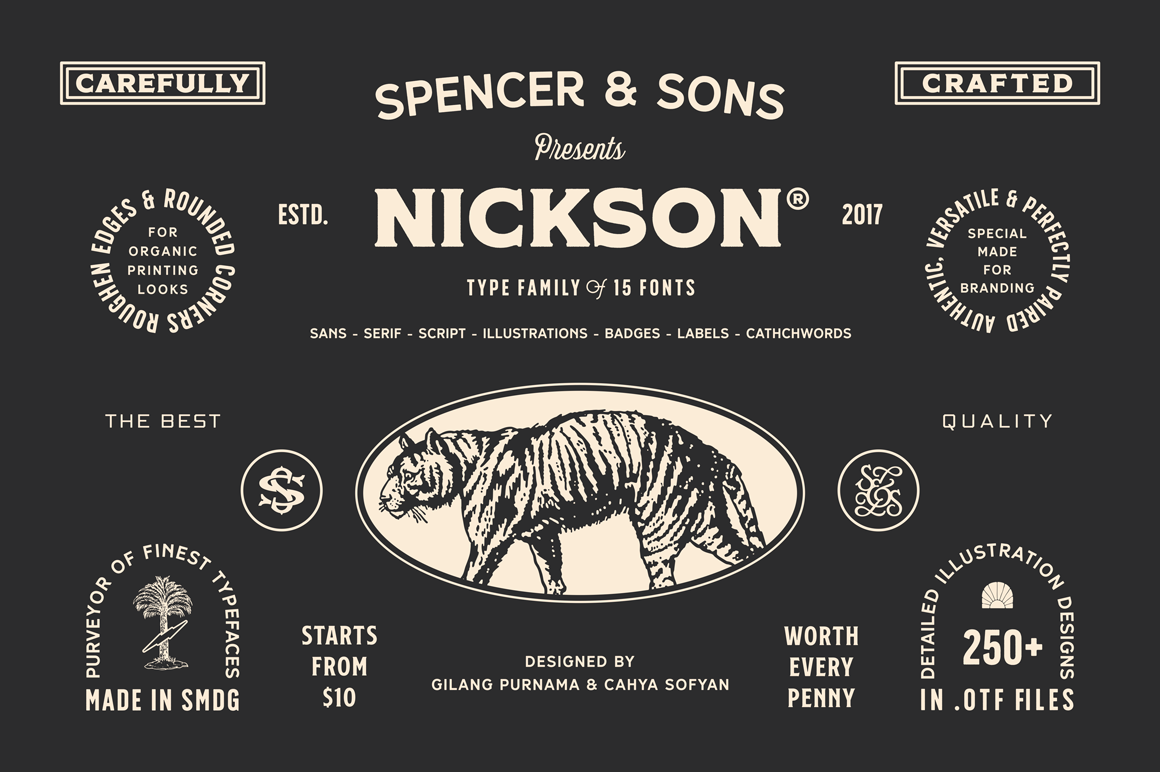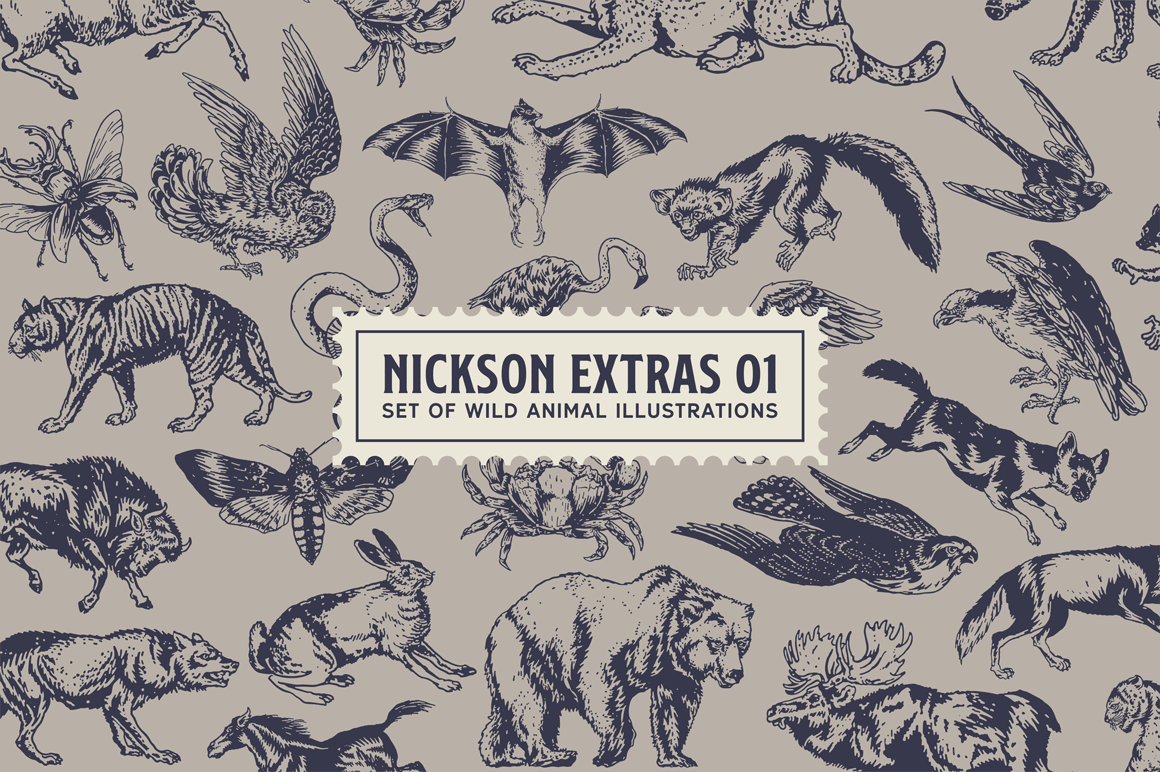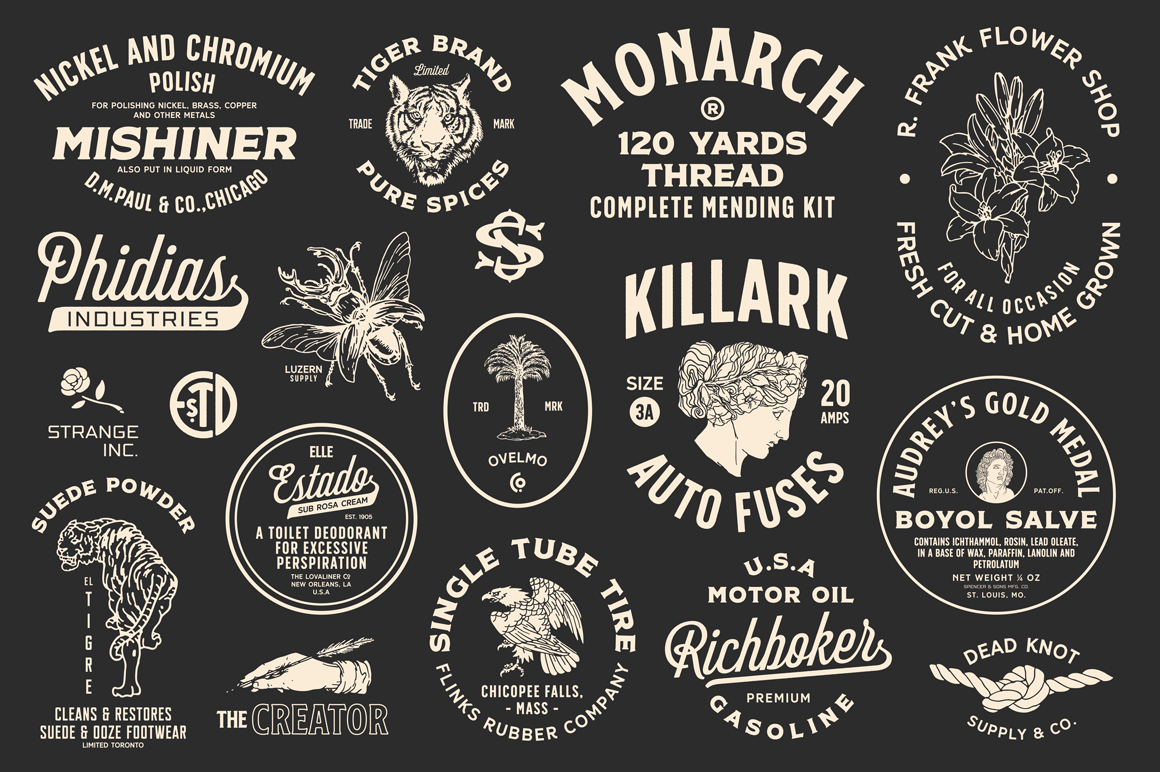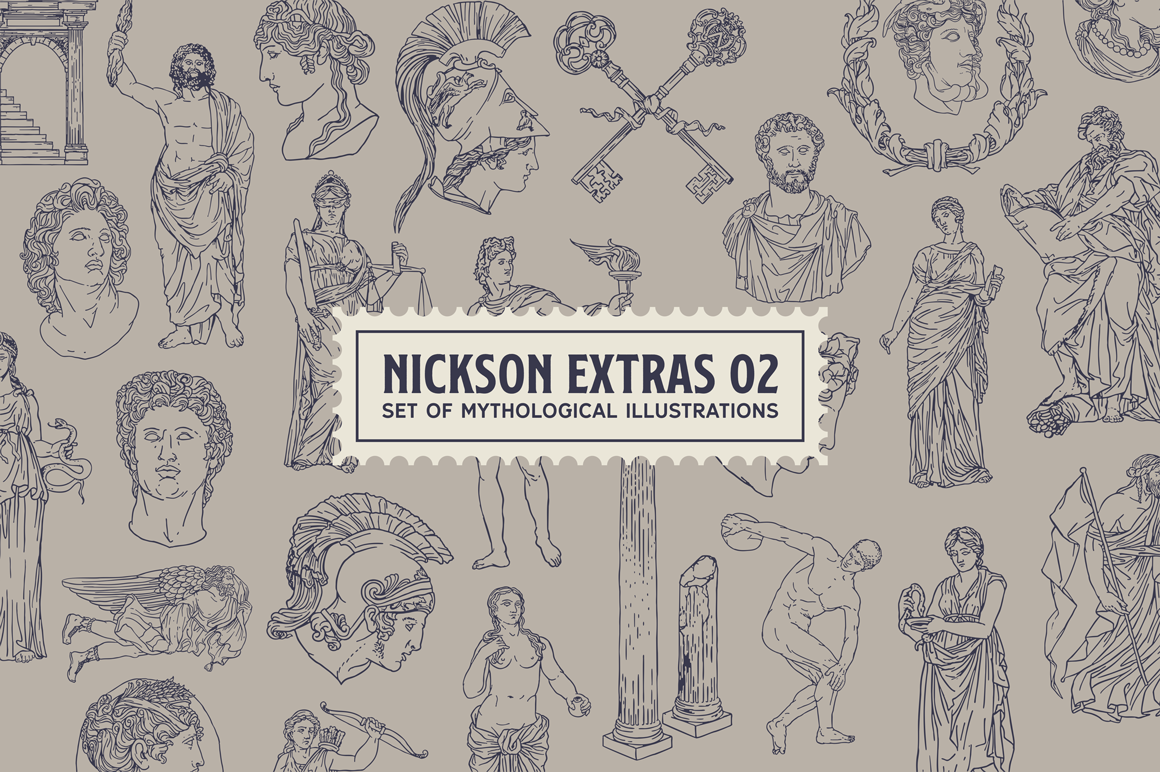
Nickson Font: Vintage Typography Family + 250+ Wild Animal Illustrations
About the Nickson Font
Step up your design game with Nickson Font, a font that exudes confidence and style. Nickson is a jawdroppingly stunning type family. This font family includes 15 different fonts with different yet complementary styles that fit seamlessly together. Nickson offers 7 display fonts, 1 script font, 250+ illustrations, badges, labels, and catchwords. So what are you waiting for?
Nickson’s bold, versatile styles excel in headlines, logos, and short-form text for branding projects. Its display fonts are ideal for posters, packaging, and social media graphics demanding strong visual impact. However, avoid using Nickson for body copy or lengthy paragraphs; its highly stylized nature reduces readability in extended text formats. UI applications should also be approached cautiously.
The script font within the family pairs beautifully with clean sans-serif fonts like Open Sans for a balanced, modern feel, or with a geometric sans-serif like Montserrat for a more contemporary look. For a touch of classic elegance, consider pairing Nickson’s display weights with a traditional serif like Garamond.
The overall personality of Nickson is bold and expressive, lending itself to brands seeking a strong, memorable visual identity. Its diverse styles offer significant flexibility, making it a powerful tool for designers aiming to create visually striking projects.
Nickson Font Usage Examples
Nickson Font Example